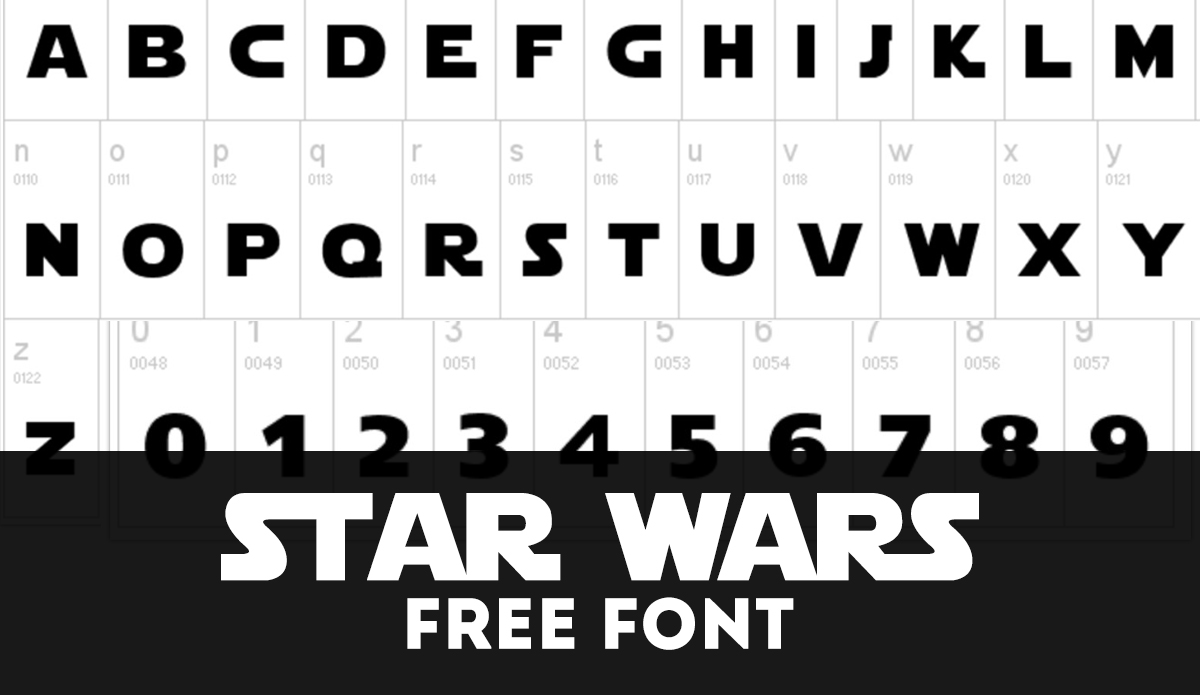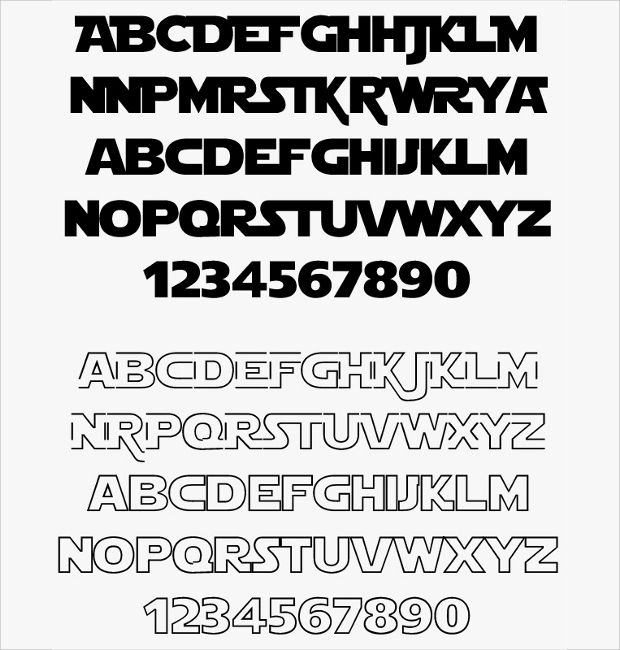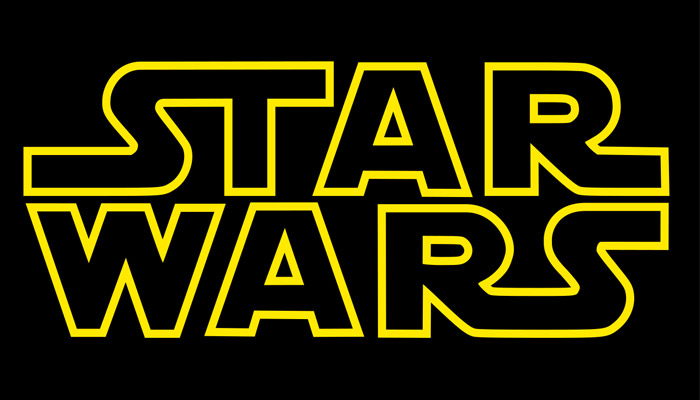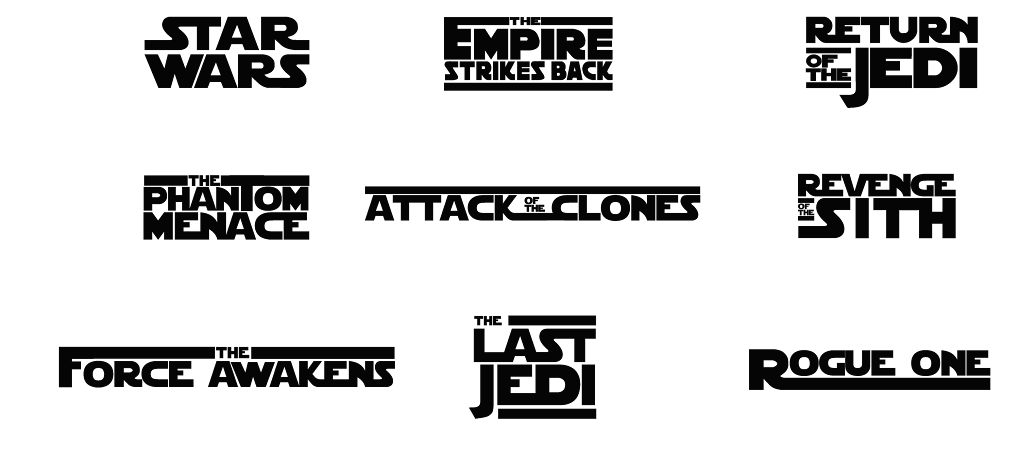
Counting from the force awakens font to star jedi, you get total of 62 free star wars fonts to download.
Star jedi font for microsoft word. Yes, there is a category known as star wars fonts. Kelsey sandoval on repack free star wars fonts for microsoft word. In a nutshell, fontspace ensures you get the best.
A logo shortcut, use the @ symbol in star jedi or star jedi hollow to insert the logo in. The fonts in use section features posts about fonts used in logos, films, tv shows, video games, books and more; Is the star wars font free to use?
Fontforge, apple font book, bohemian coding fontcase, mac os x font book. Star jedi is a bold font that reproduces exactly the star wars logo's typeface. Starjout/star jedi outline font guide word97.doc:
The star jedi font was designed in a way that the lowercase looks like the uppercase letters, and the uppercase letters are ligature variants instead of regular letters. In order to download your text in stl format, you should log in with your account or create one now. Than to open a file:
The star jedi font was designed in a way that the lowercase looks like the uppercase letters, and the uppercase letters are ligature variants instead of regular letters. To download the free star wars font called “star jedi”, simply click this button: The star wars logo lettering is very similar to a font named star jedi created by boba fonts and you can download it for free here.
May 4, 2021 — there are block, hollow and outline versions of the font. The text generator section features simple tools that let you create graphics with fonts of different styles as well as various text effects; There are a few ‘star wars’ fonts available.
Open it up in microsoft word or photoshop and choose the star jedi font. Star jedi special edition is a titling (capitals only) font, with a lot of variations and connections. Star jedi font ms word.
You can use this font to print it in 3d, either with your own printer or via a printing service provider. The small letters are all capitals, while the capitals are serif variants. An excellent collection is star jedi which has a good set of characters and link lines to emulate parts of the logo.